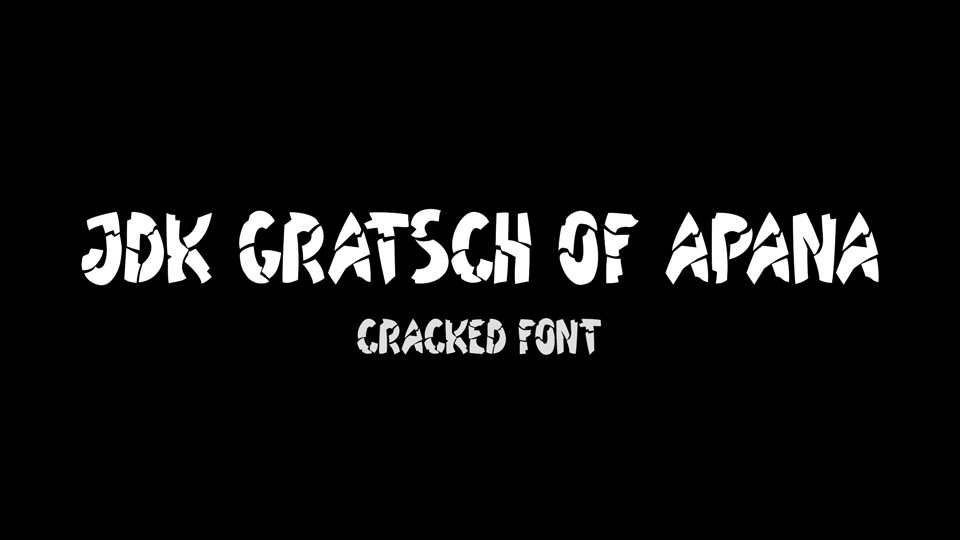
Download JDK Gratsch of Apana font, a cracked typeface resembling shards, possibly broken fragments of mica. Suitable for inscriptions on stone, broken inscriptions, etc.
Designer: Jakub D. Kočí